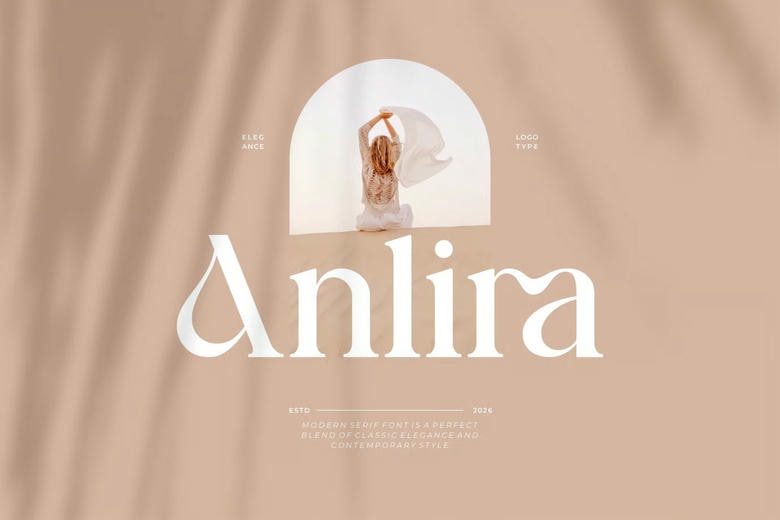
Anlira Font
Anlira is a serif font type of modern and classy look for all branding and logo designs. This is a modern and classy Serif font with a beautiful character. This font is good for designs of invitation cards, cool logo, movie titles, movie names, business cards, book titles, brand names, and various other designs. Anlira Serif is a smooth serif font that emanates sophistication and the moment. Its stylish ligatures make this font a perfect part of any project.
Anlira Serif Font